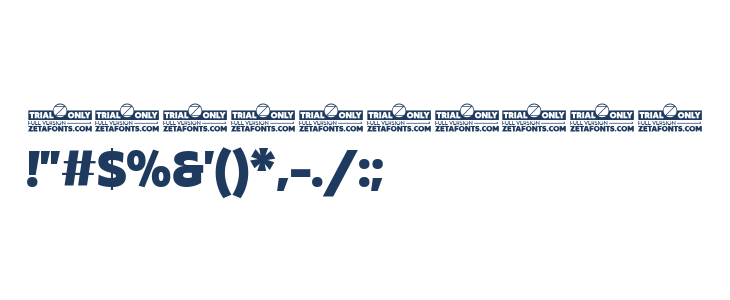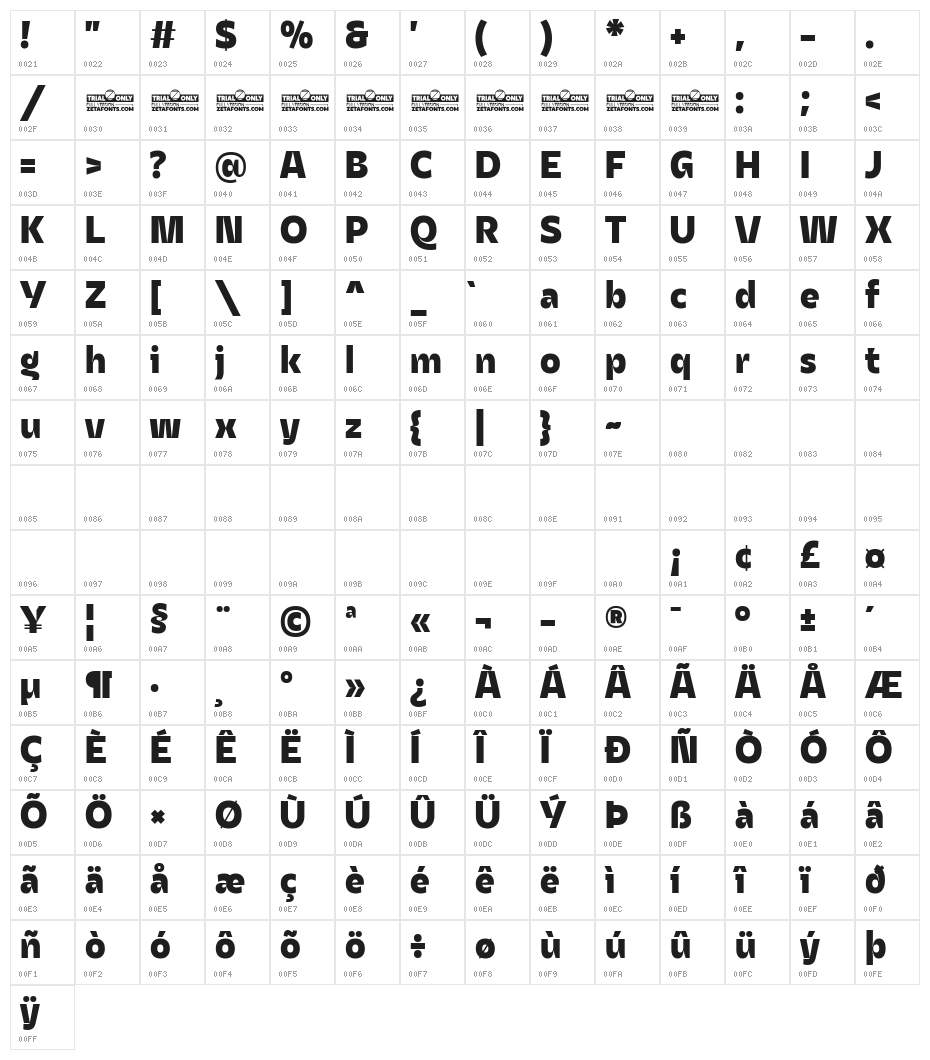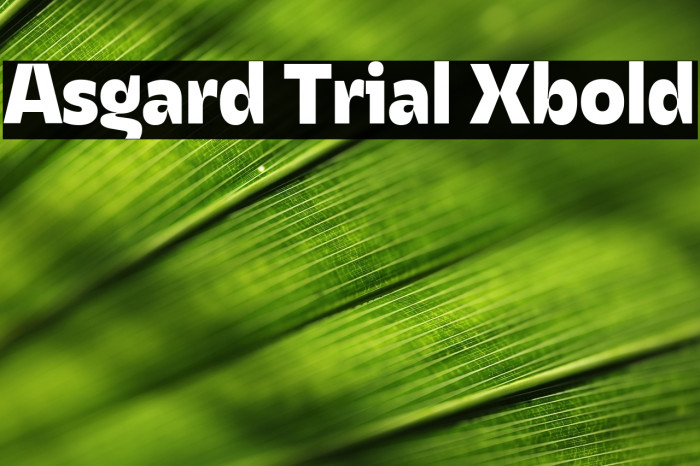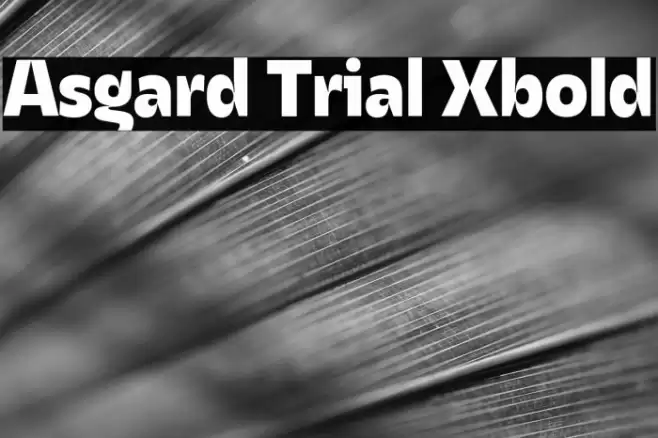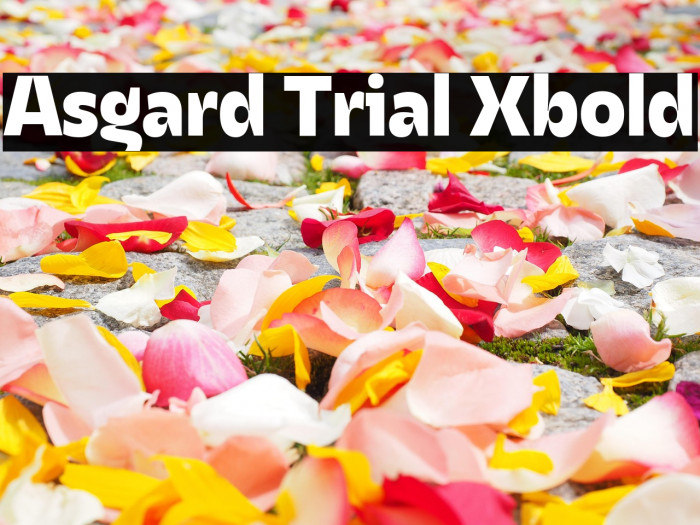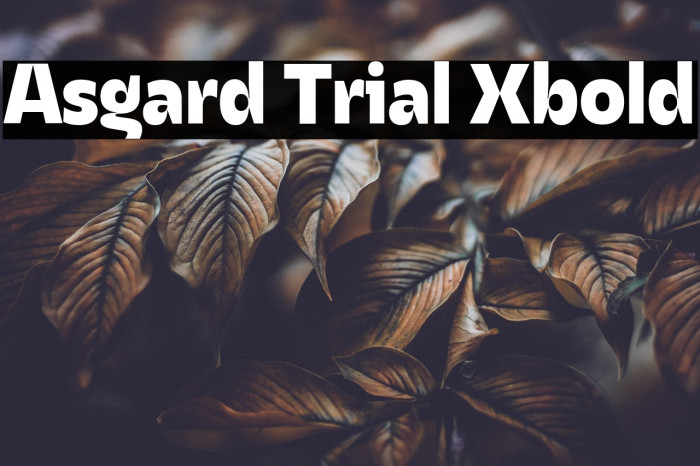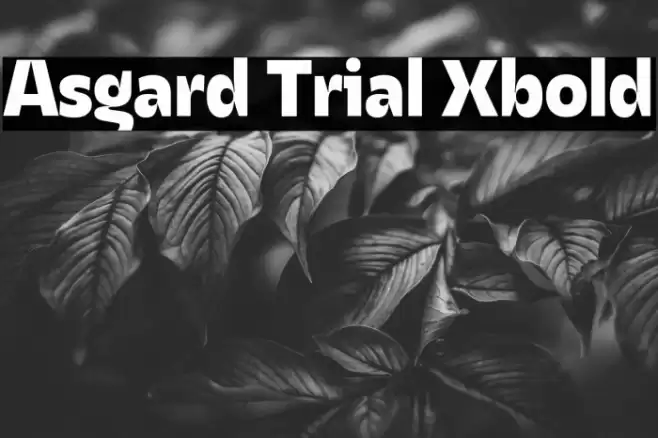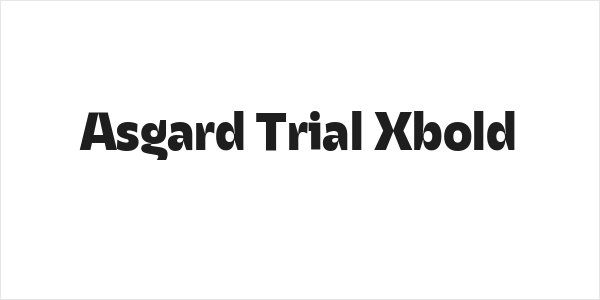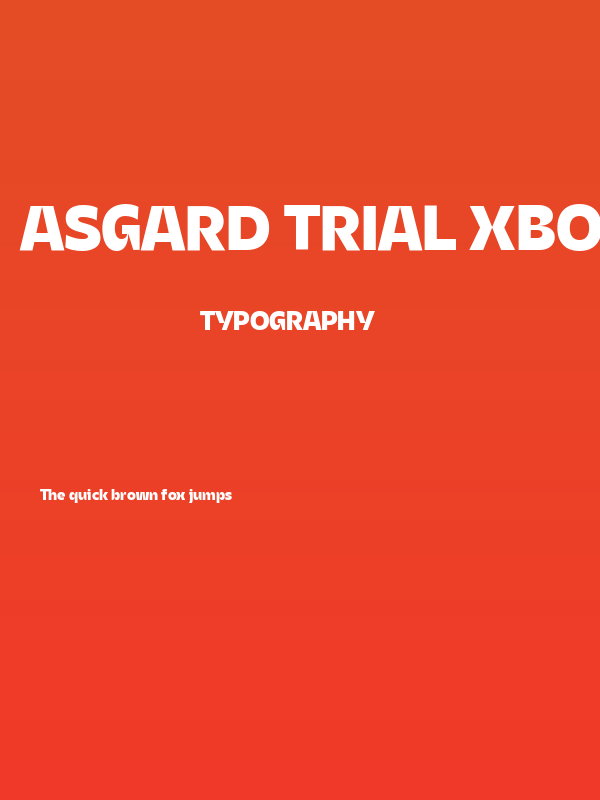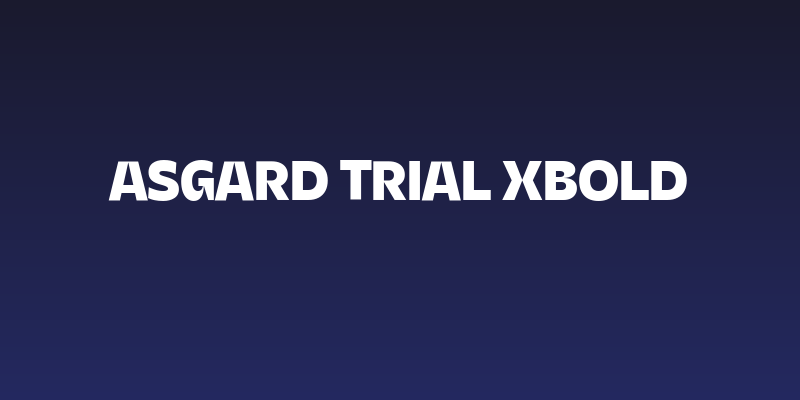
Asgard Trial Xbold Font
Asgard Trial Xbold Description
This bold and striking font features a strong presence with its thick, uniform strokes and slightly rounded edges. The uppercase letters are robust and commanding, while the lowercase letters maintain a consistent weight, offering a harmonious balance. The numerals and special characters are equally bold, ensuring readability and impact. Its design is modern and clean, making it suitable for various applications where a strong visual statement is needed. The character spacing is tight, enhancing its bold appearance and making it ideal for attention-grabbing headlines or logos.